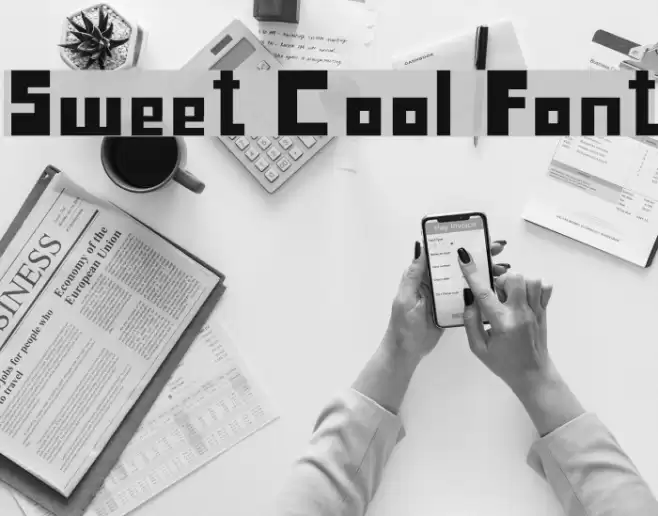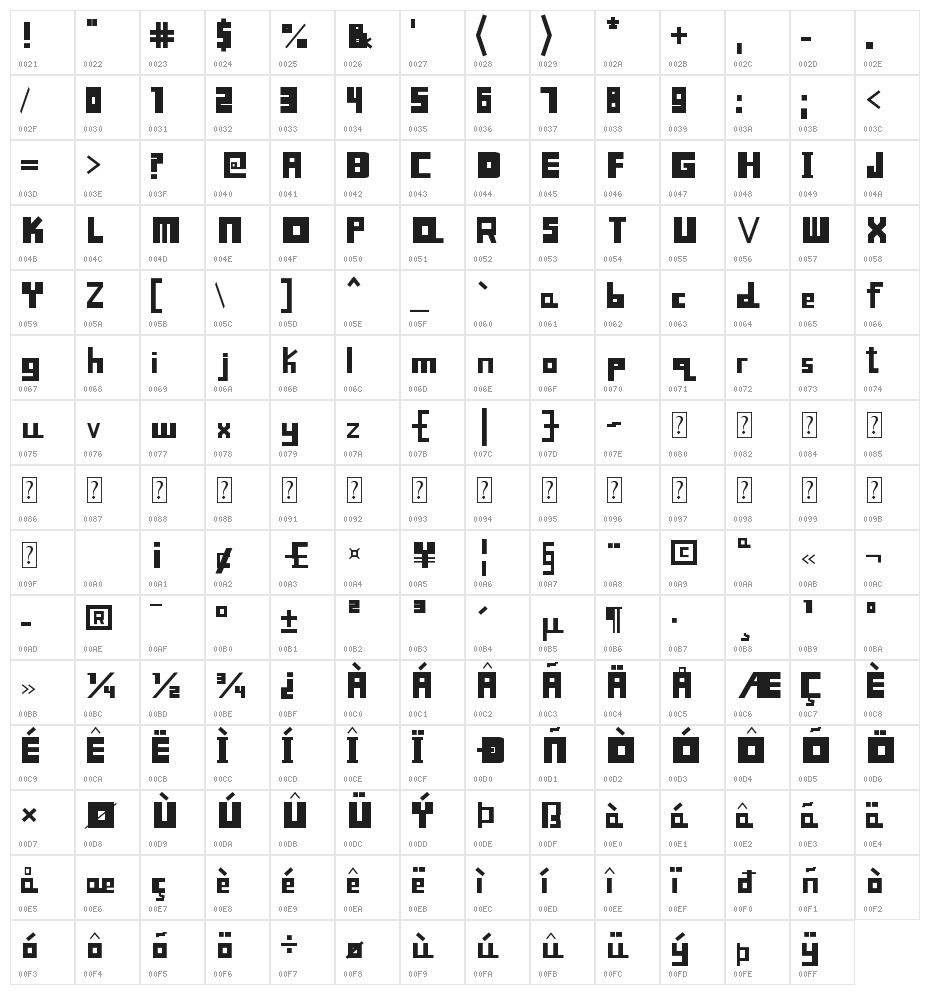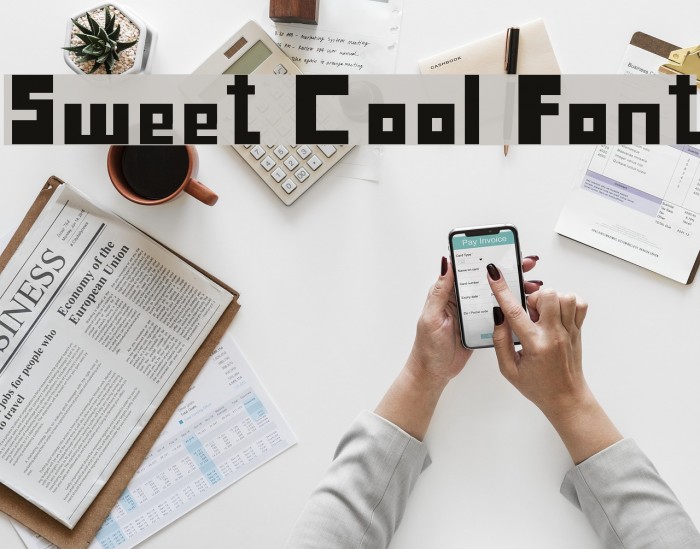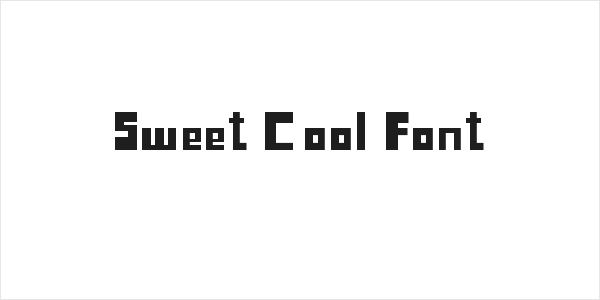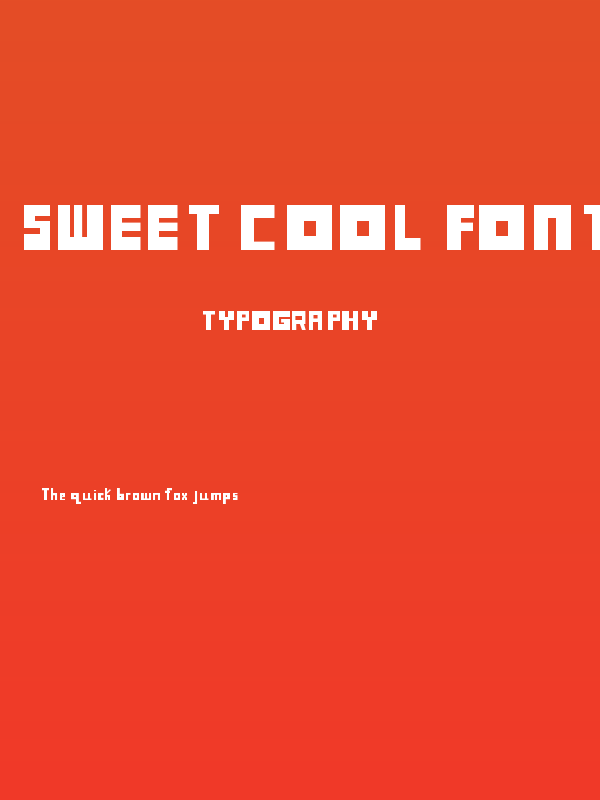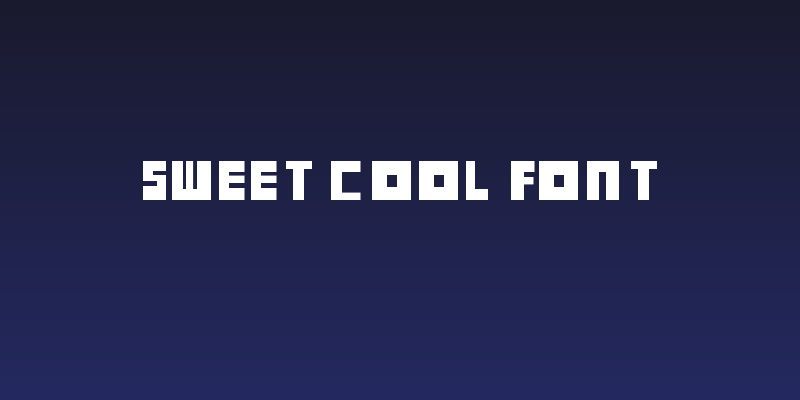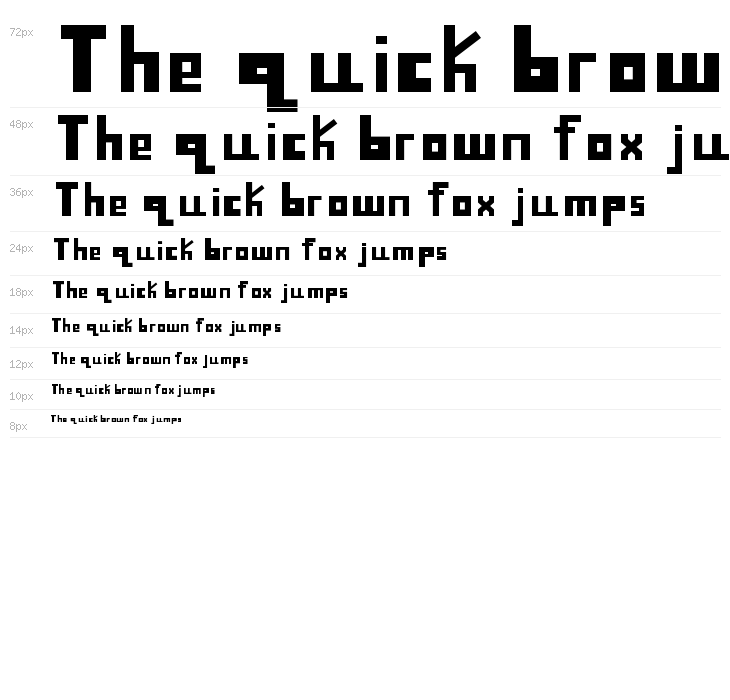
Sweet Cool Font Font
Sweet Cool Font Description
This font features a bold, geometric design with a blocky and angular aesthetic. The characters are uniformly thick, creating a strong visual impact. The uppercase letters are particularly striking, with sharp edges and a modern feel. The lowercase letters maintain the same boldness, ensuring consistency across the typeface. Numbers and special characters follow the same design principles, making them easily recognizable and cohesive with the rest of the font. The overall style is reminiscent of digital or futuristic themes, making it suitable for projects that require a modern and edgy look.
A bold, geometric font with a modern, angular design from Uncategorized fonts.
- Proposed Projects: Ideal for digital media, video game graphics, tech branding, and futuristic posters.